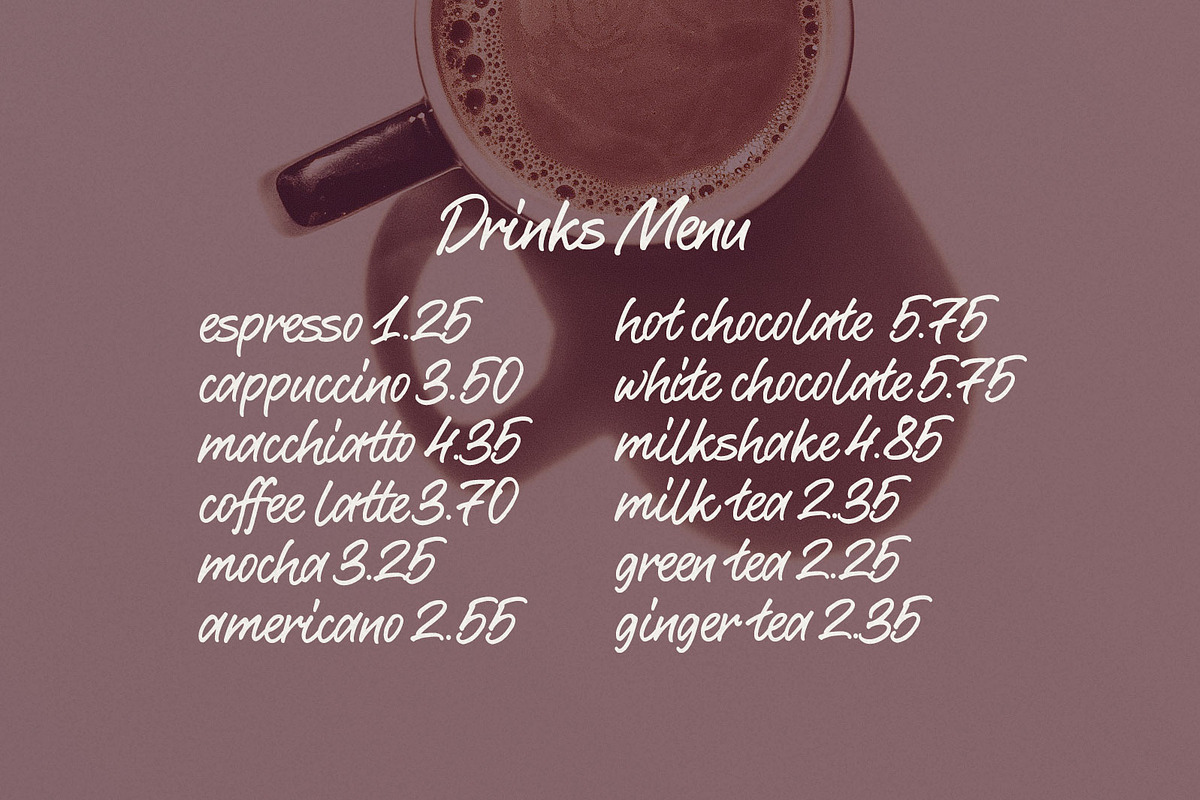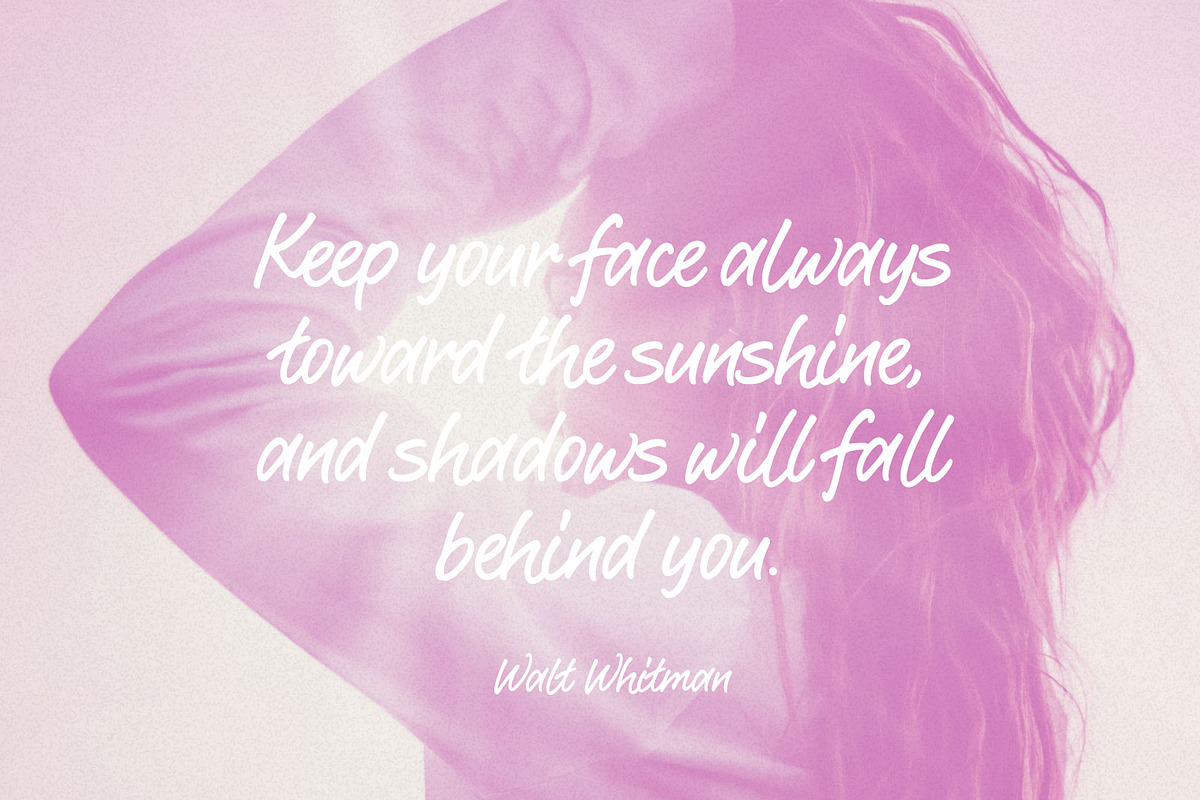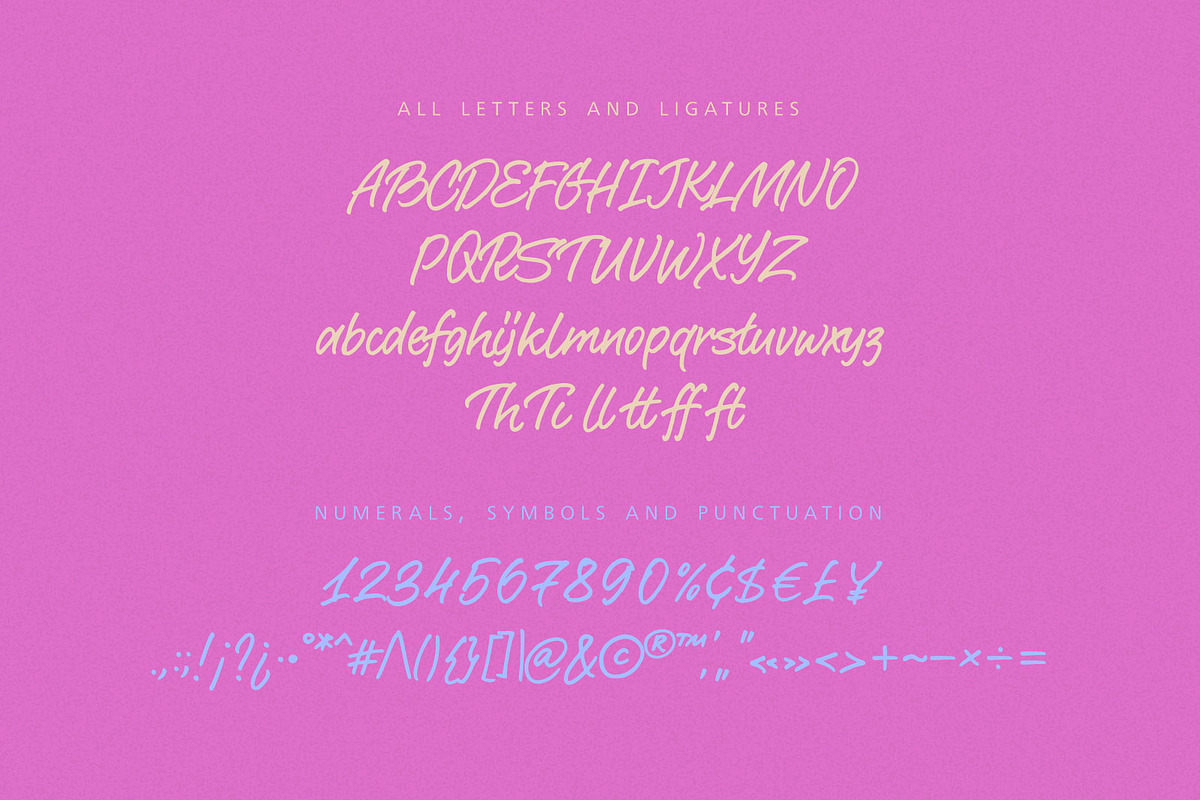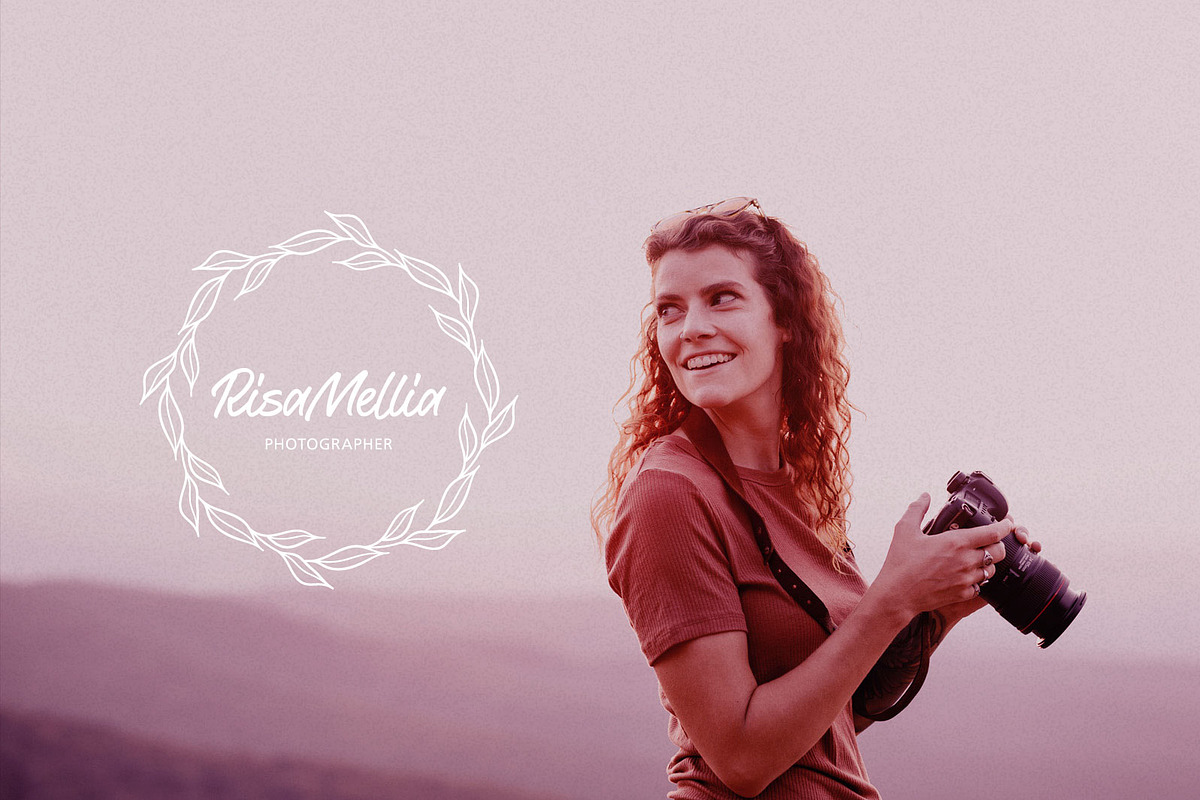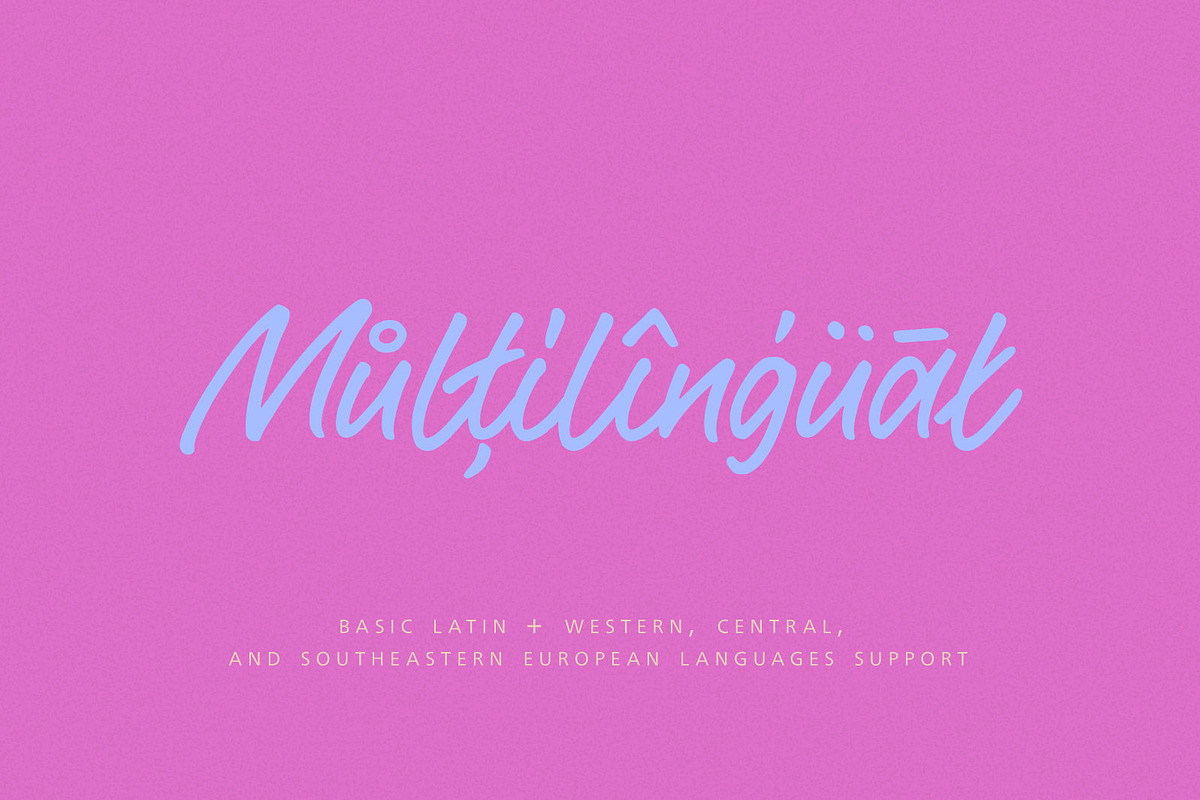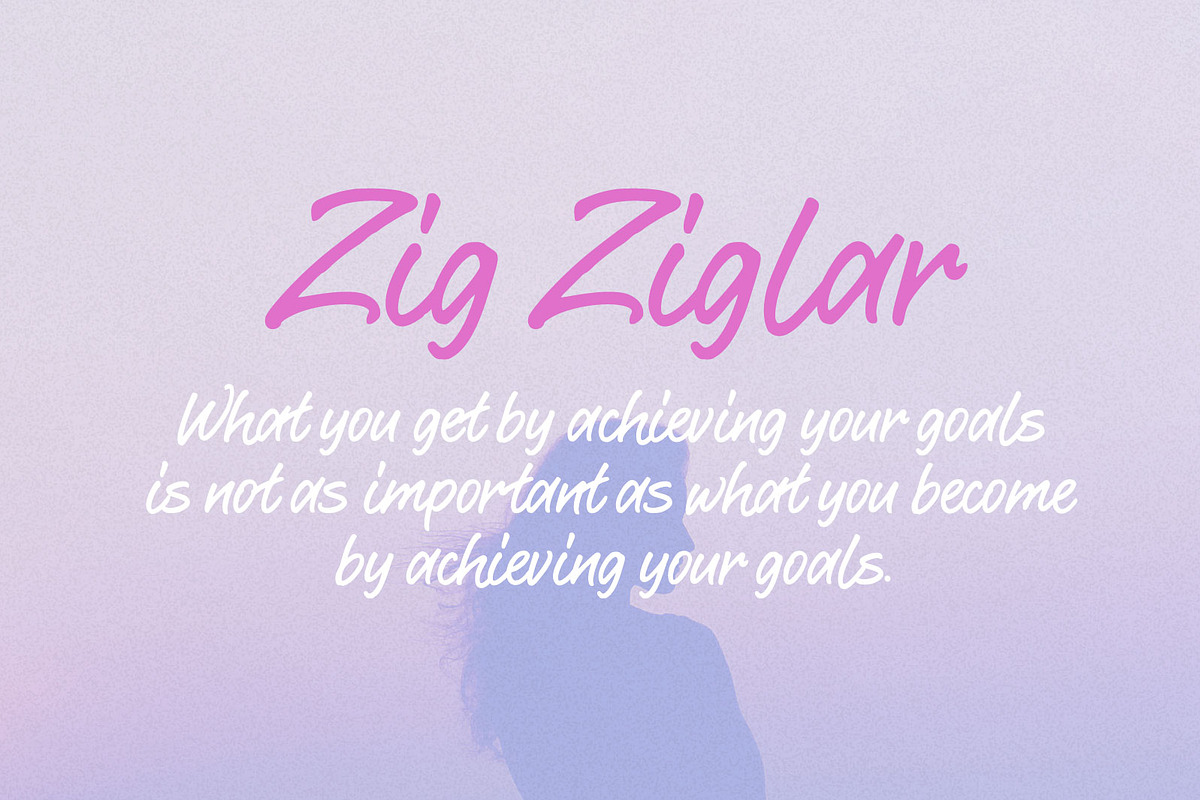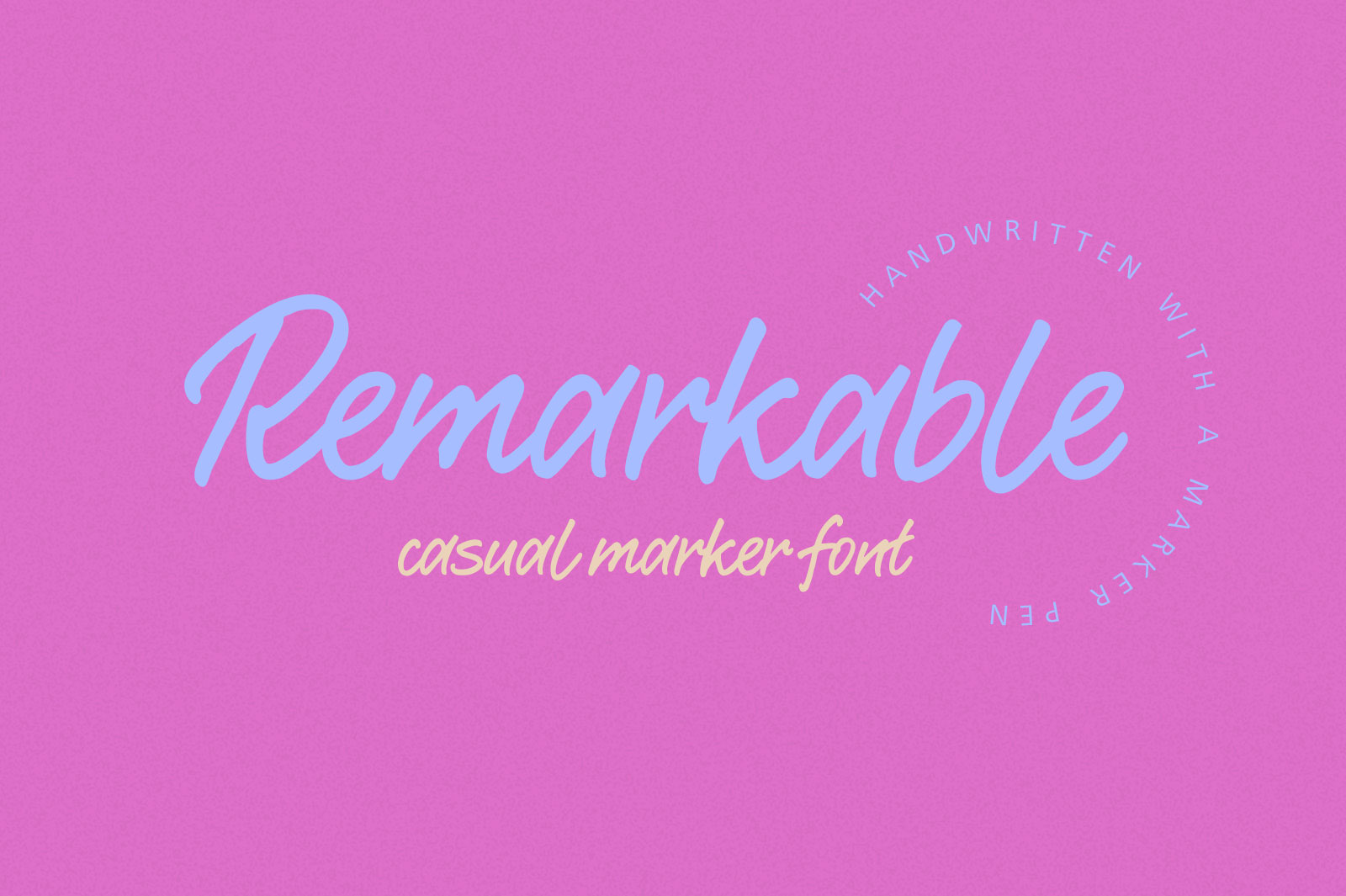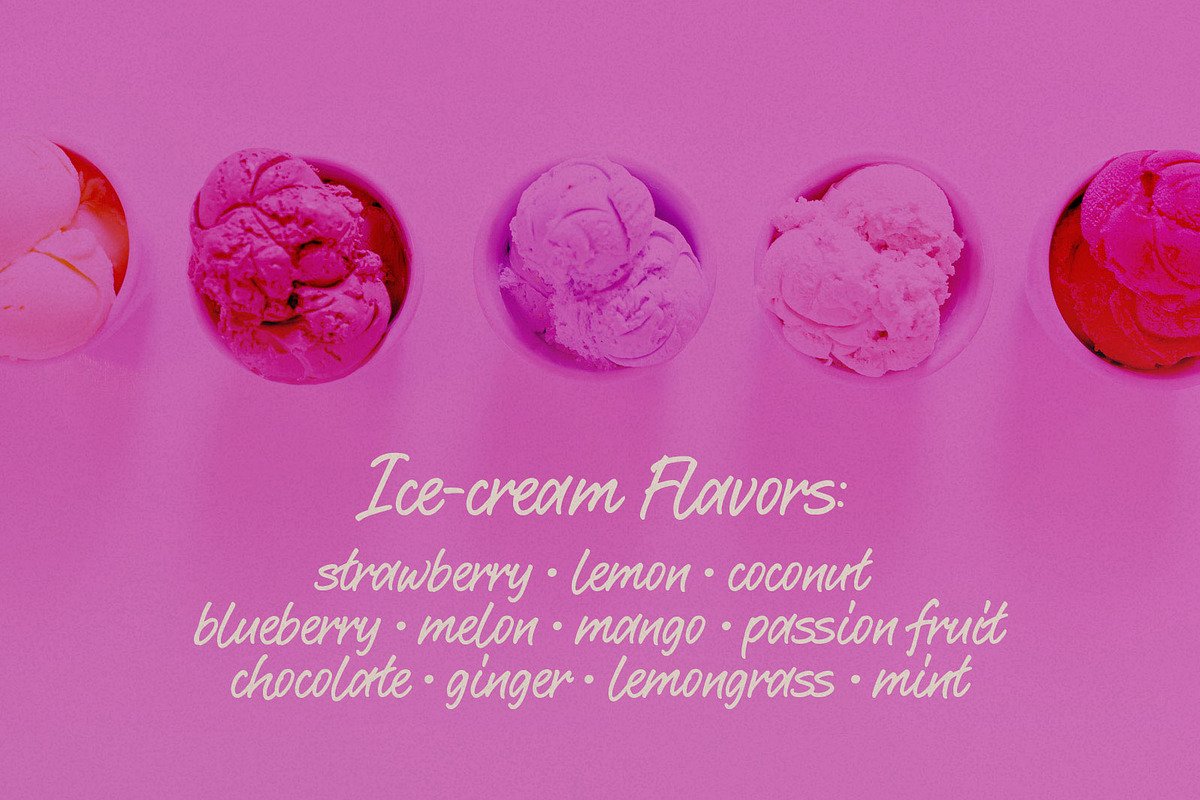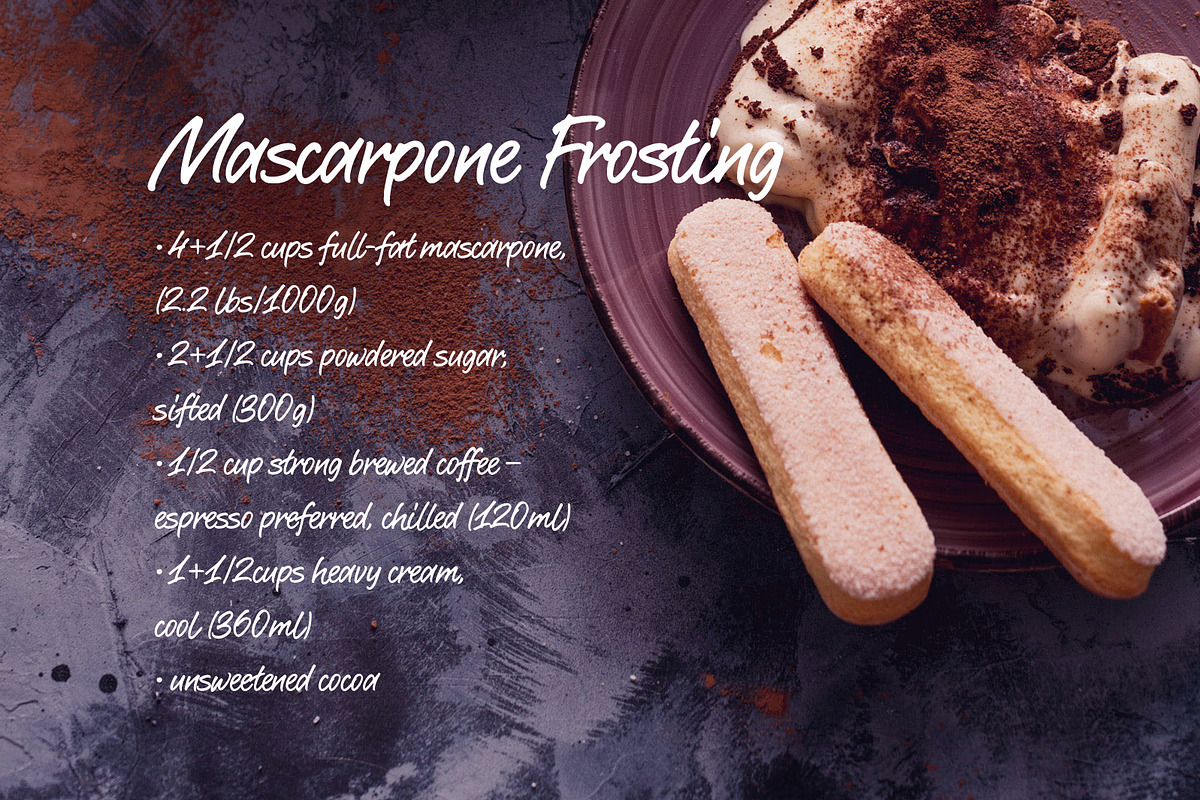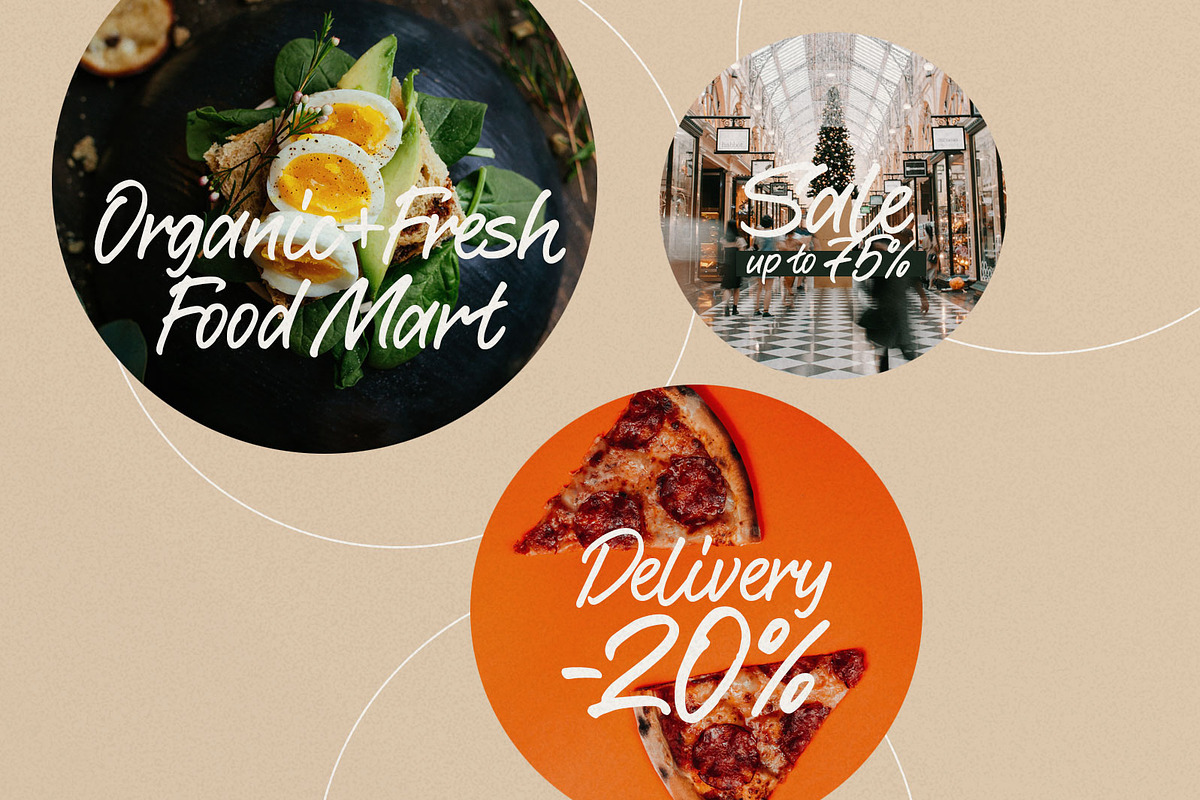
Remarkable Marker | Handwriting Font
RemarkableMarker is a very casual handwritten font. Not perfect, but so cute)
*Language Support: Basic Latin, Western European, Central European, Southeastern European.